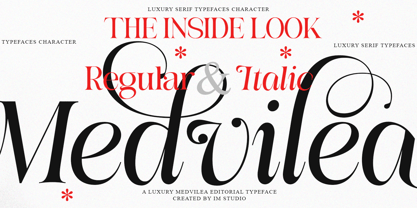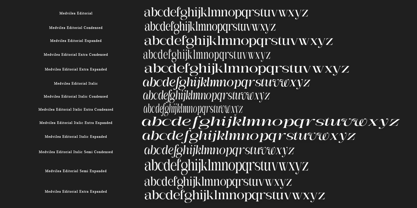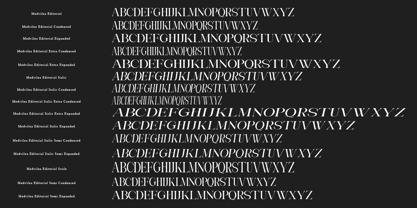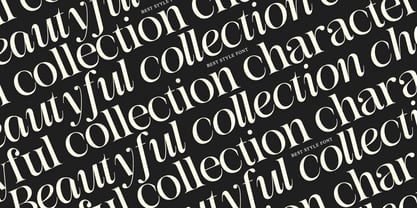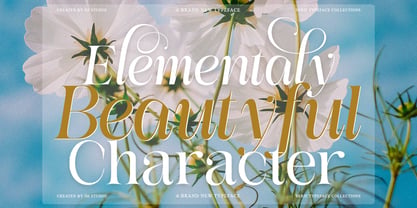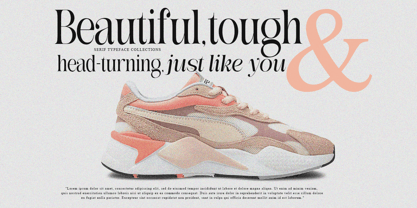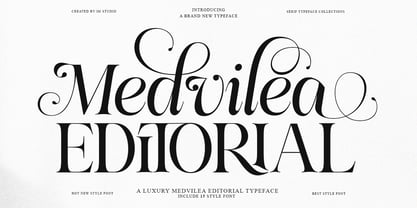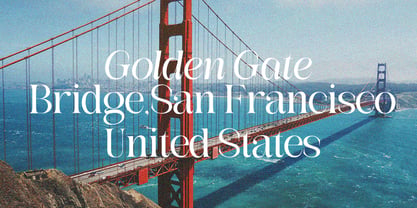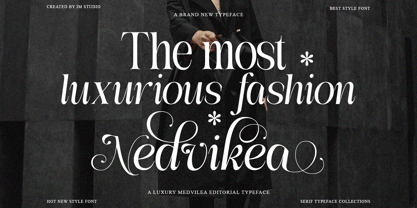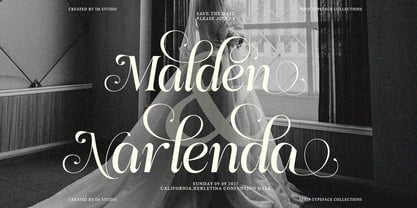
Medvilea Editorial
by IM Studio
The Medvilea Editorial Font Family was designed by Ikhsan Maulana and published by IM Studio. Medvilea Editorial contains 15 styles and family package options. More about this family
Medvilea Editorial | 15 Font Styles – The Quintessence of Modern Luxury Bring timeless luxury into your designs with Medvilea Editorial. A precision-crafted modern display serif typeface, this font combines subtle contrasts and flowing curves to create a high-end typographic aesthetic. Medvilea is more than just a font; it's a style statement for projects that demand sophistication, elegance, and a strong visual character. Why Choose Medvilea Editorial? Endless Versatility: This collection includes 15 uniquely curated font styles—from the sleek Condensed to the bold Extra-Expanded—giving you complete freedom to experiment. Visual Precision: Elegantly detailed curves make it a top choice for luxury branding, fashion editorials, and premium magazine typography. Multilingual Support: Comes with uppercase and lowercase characters, as well as extensive international language support for global design needs. The Collection (15 Styles Included). Best Design Applications: Branding & Identity: Luxury logos, exclusive business cards, and corporate identities. Editorial & Publishing: Magazine titles, book layouts, and headlines. Fashion & Lifestyle: Fashion event posters, premium product labels, and cosmetic packaging. Digital Presence: Elegant web typography, aesthetic social media content, and other digital assets. Upgrade your design asset collection now. The new definition of luxury editorial typography is in your hands. Get Medvilea Editorial and transform every project into an iconic work of art!
Designers: Ikhsan Maulana
Foundry: IM Studio
Let me introduce myself, my name is Ikhsan Maulana. I am the owner of IM Studio Foundry which was founded in 2018. IM Studio is a font design studio based in Indonesia. Currently, I am fully pursuing my new passion. I fell in love with the world of writing, drawing letters, and love all forms of creativity. I love exploring and seeing how typography reflects a brand's personality. I want to continue to develop my creativity and use my passion to provide greater benefits for myself and the designer community. I created my first font in mid-2018. Since then, I have transformed my freelance business into Type Foundry. Founding IM Studio to help designers choose their projects.Thank you. Ikhsan Maulana